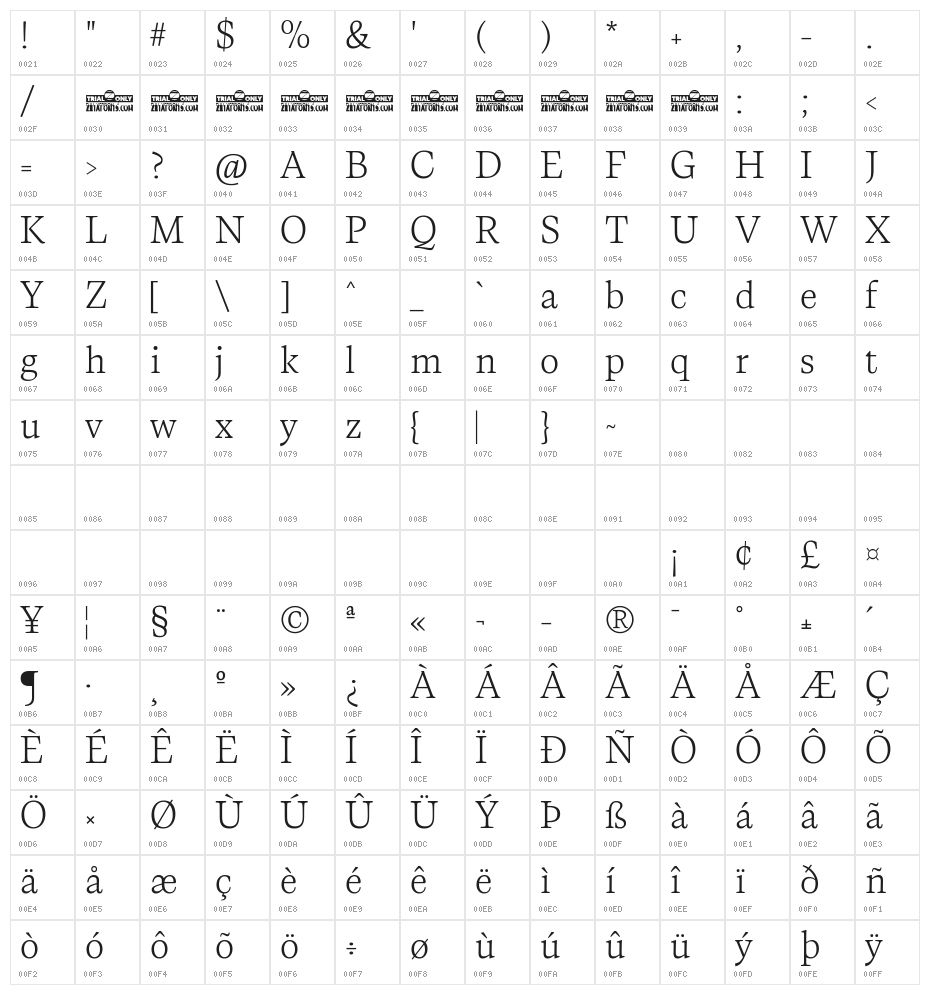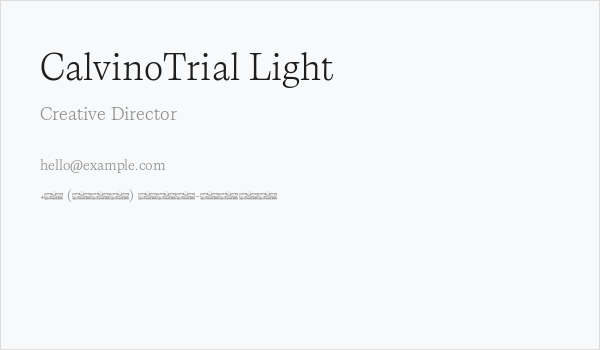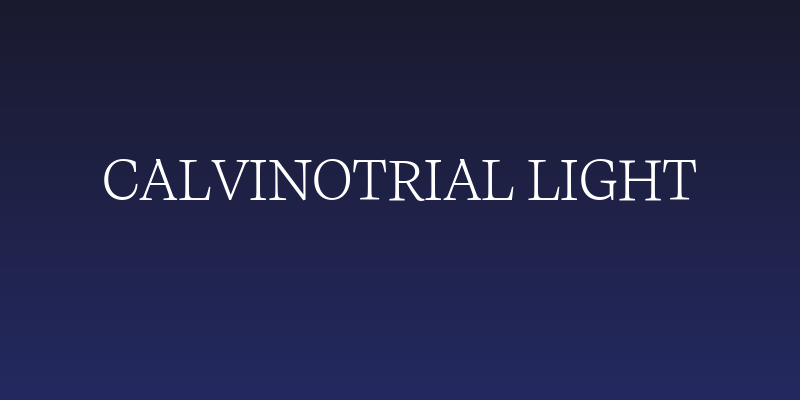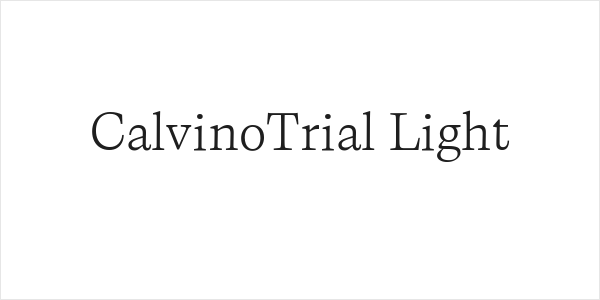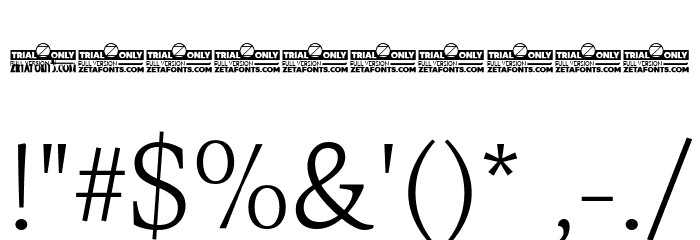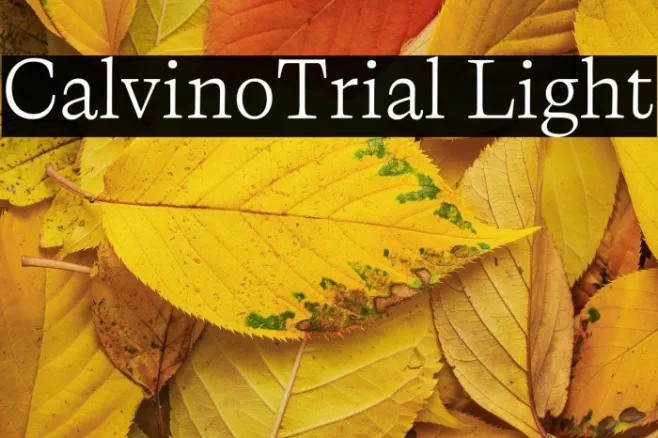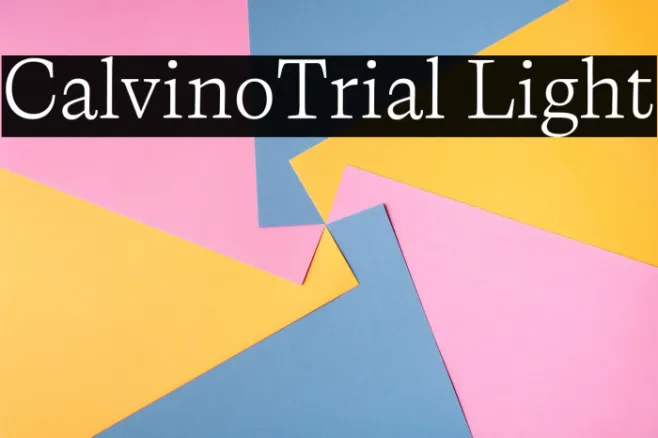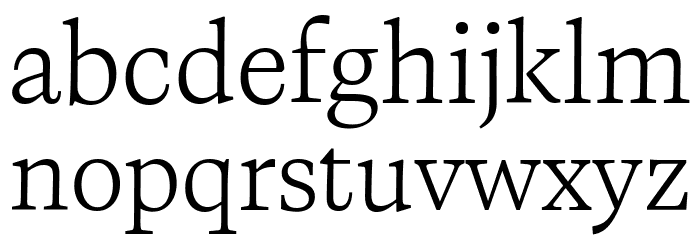
CalvinoTrial Light Font
CalvinoTrial Light Description
This font presents a refined and elegant serif style, characterized by its thin and graceful strokes. The letters exhibit a classic form with slight variations in stroke width, providing a subtle contrast that enhances readability. The uppercase letters are tall and commanding, while the lowercase letters maintain a consistent and harmonious flow. The numerals are clear and distinct, matching the overall aesthetic of the typeface. Special characters are well-integrated, maintaining the font's sophisticated appearance. This typeface is suitable for projects that require a touch of elegance and tradition.